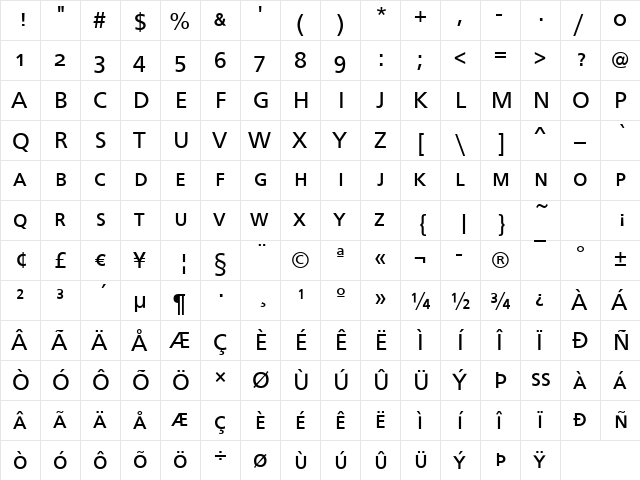
FrontPage-Caps Regular
Design Context for FrontPage-Caps Typeface
FrontPage-Caps offers clean, dependable letterforms without strong stylistic allegiance, making it a practical choice for designers who need flexibility.